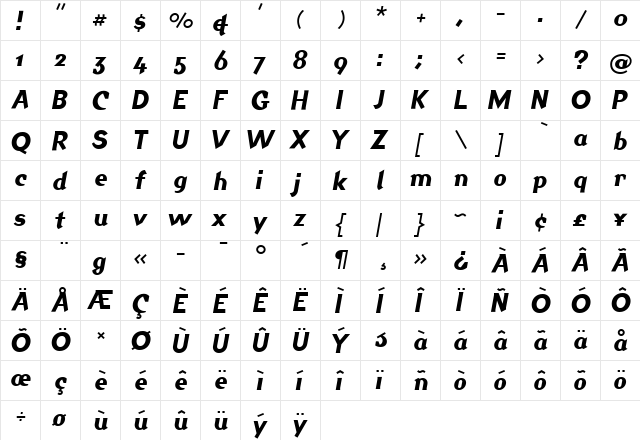
Jackdaw Italic
Design Context for Jackdaw Typeface
Jackdaw is a composed and adaptable typeface that performs quietly and consistently across a wide range of design contexts. The dynamic lean of this cut emphasises speed and emphasis in any layout.
Pro Tip: Use Jackdaw for emphasis, pull quotes, and subheadings where its slanted energy can add rhythm to the layout.